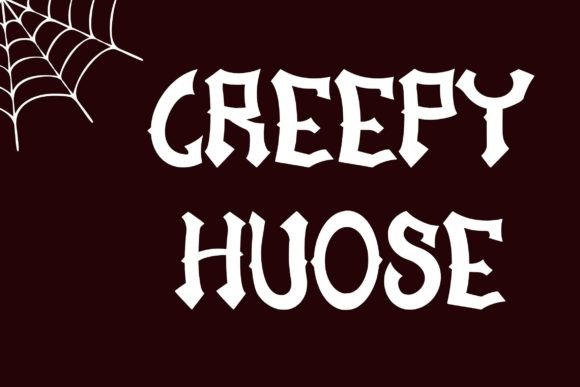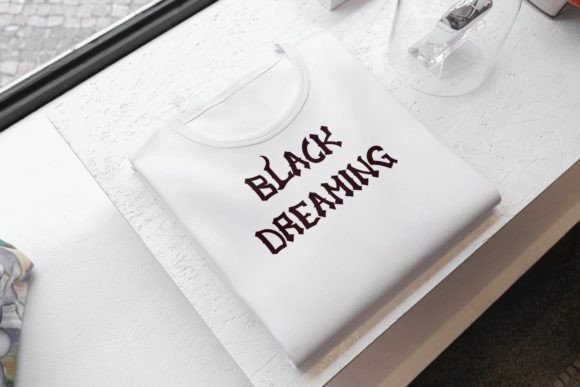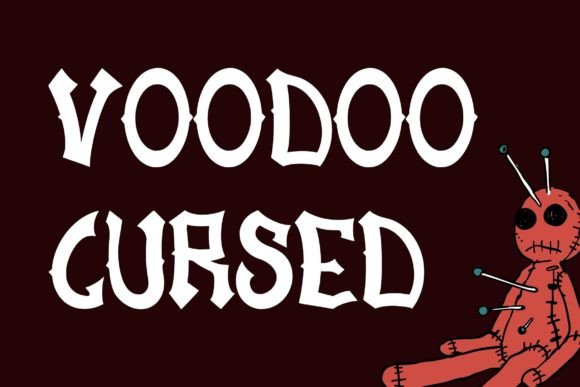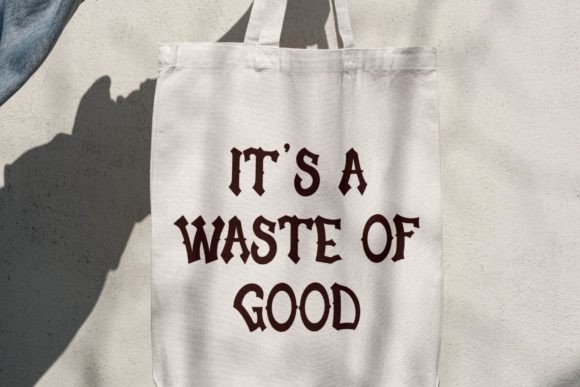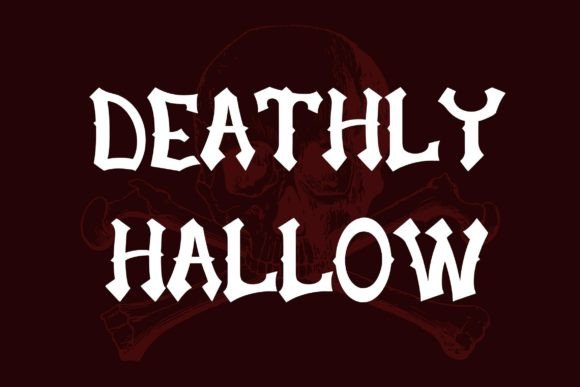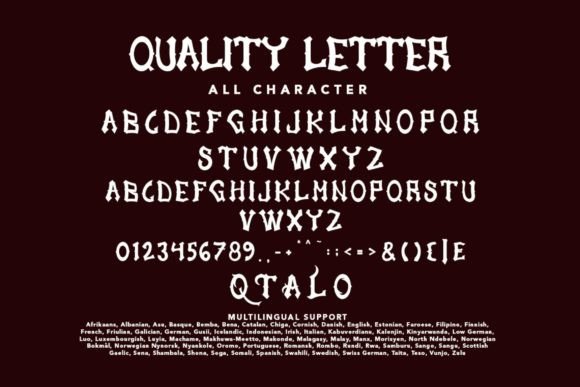
Introduction to Quality Letter Font
Quality Letter is a cool and daring blackletter font masterfully crafted to become a true favorite.
Contemporary and fresh, it is perfect for any design you wish to create Add it to your creative projects and make them outstanding.
Key Features of Quality Letter Font